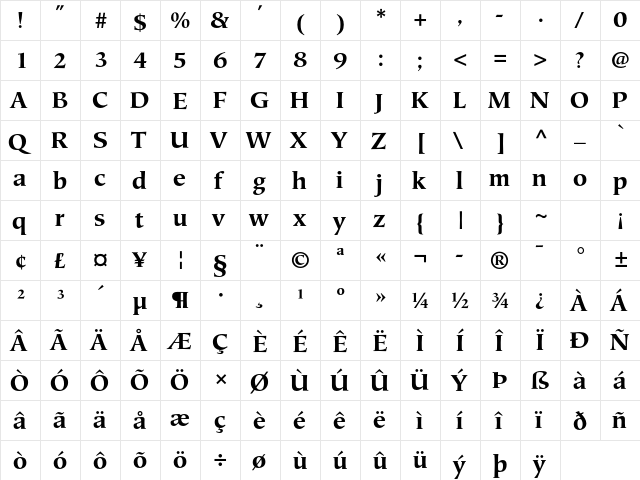
Mariposa Std Bold
| Foundry | International Typeface Corporation |
| Designer | Philip Bouwsma |
Design Context for Mariposa Std Typeface
Mariposa Std offers clean, dependable letterforms without strong stylistic allegiance, making it a practical choice for designers who need flexibility. Its bold stroke weight gives it real presence on the page.